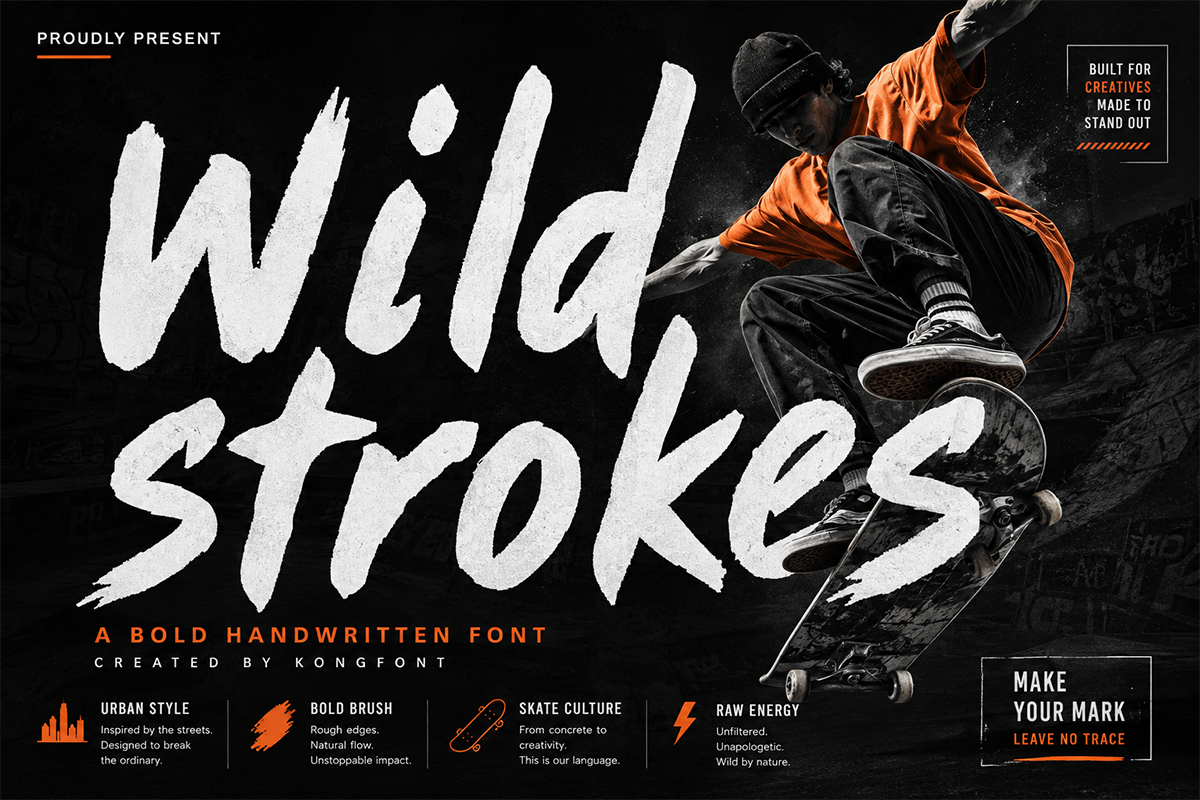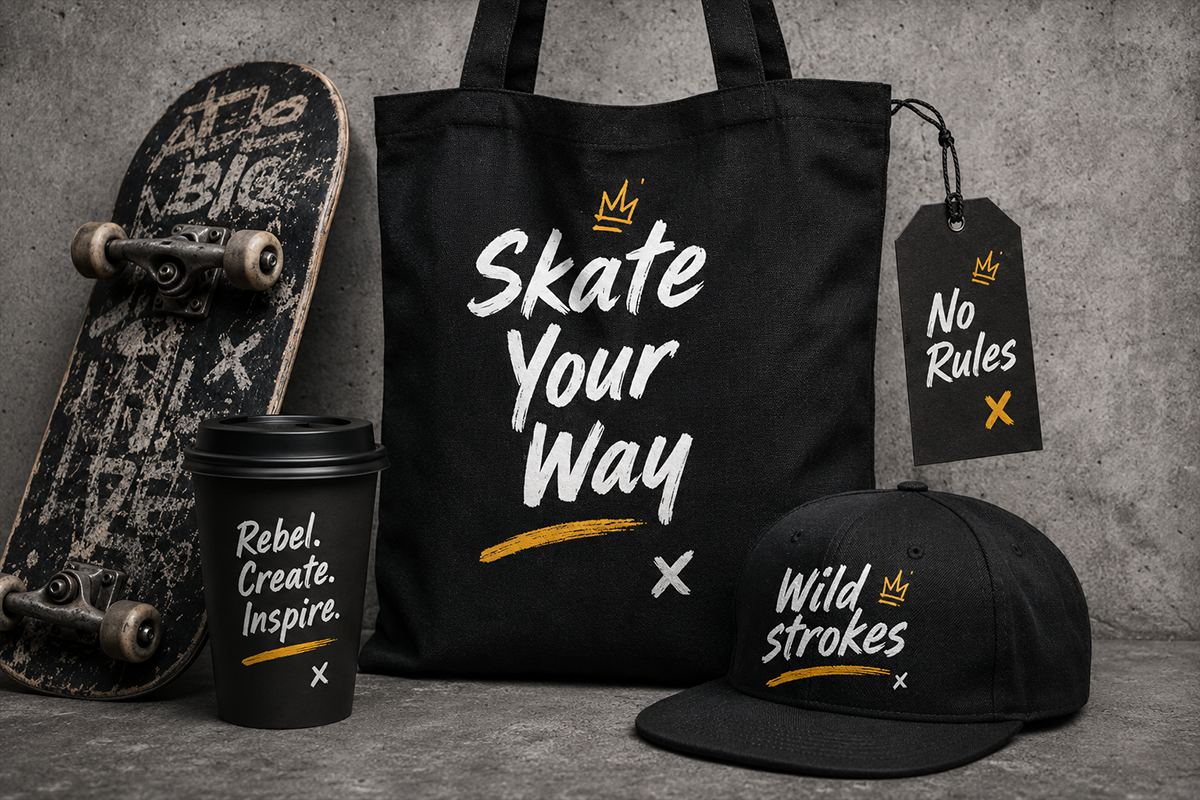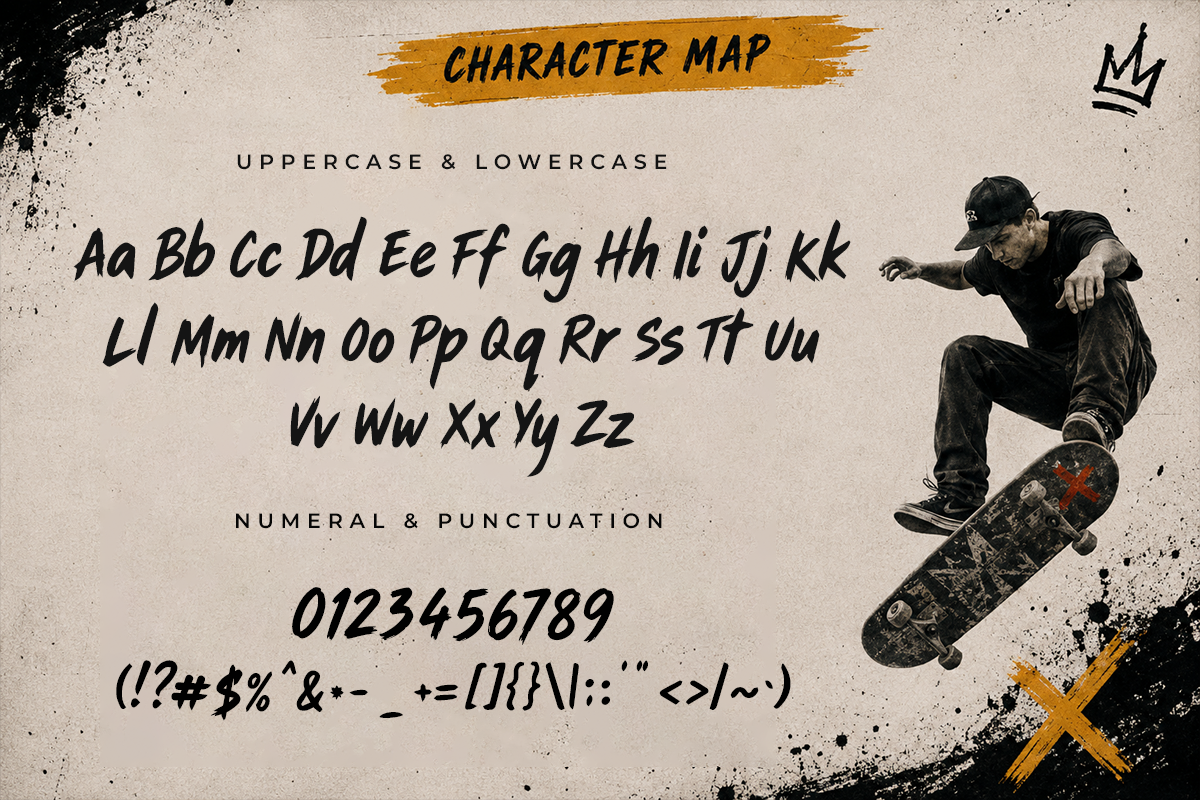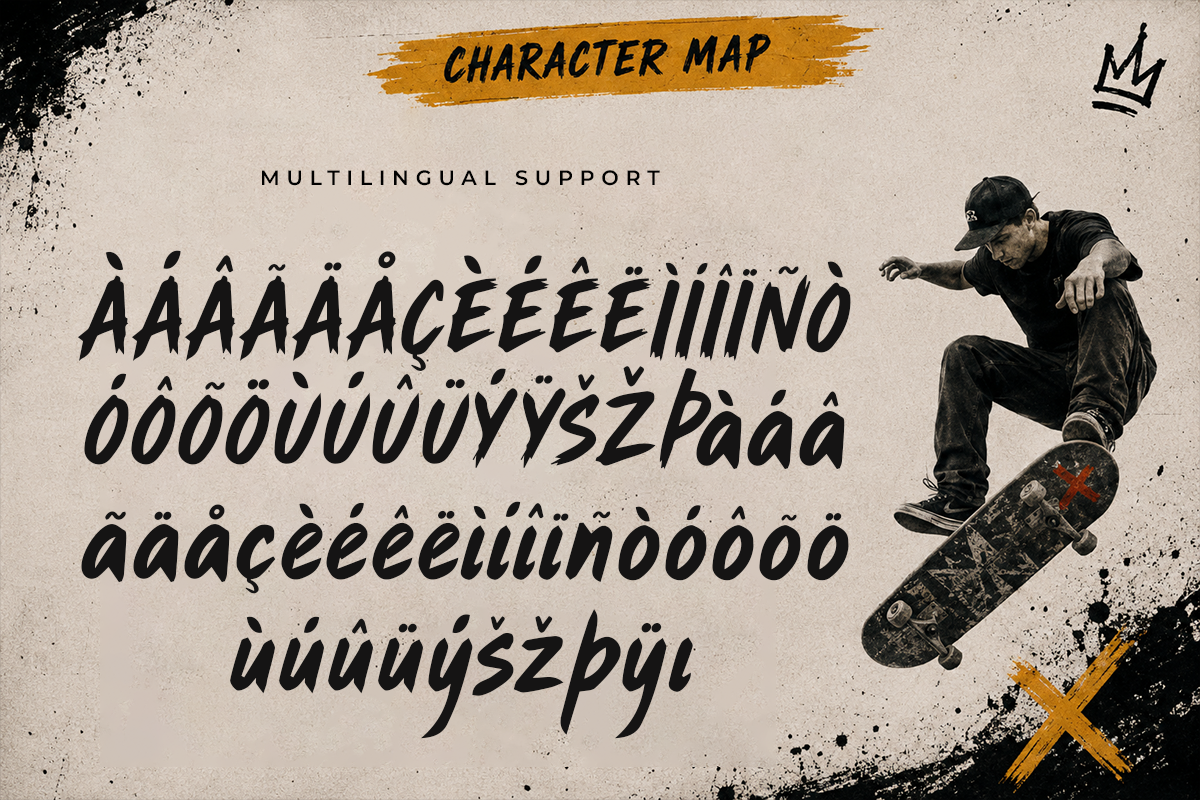
Wild Strokes is a bold handwritten brush font built with raw movement, expressive texture, and fearless personality. Its rough edges, energetic strokes, and natural irregularities give every letter a handcrafted feel that looks spontaneous, rebellious, and full of motion.
Designed to capture the spirit of street culture, skateboarding, music, and urban creativity, Wild Strokes delivers strong visual impact without losing its authentic handmade character. The dynamic brush shapes make headlines feel fast, loud, and unapologetically expressive.
Wild Strokes is perfect for streetwear branding, skateboard graphics, posters, album covers, merchandise, apparel, sports graphics, music events, social media campaigns, stickers, packaging, and urban-inspired creative projects.